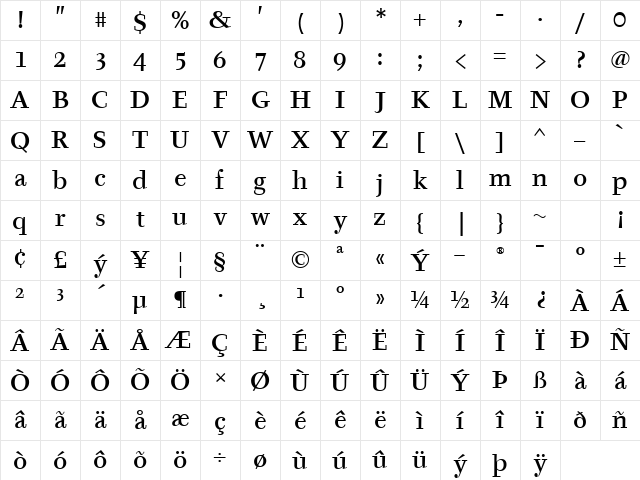
TyfaMdITC TT Medium Free Font
TyfaMdITC TT Medium
Foundry: International Typeface Corporation
Designer: Josef Tyfa/Frantisek Storm
Design Context for TyfaMdITC TT
TyfaMdITC TT is a composed and adaptable typeface that performs quietly and consistently across a wide range of design contexts.